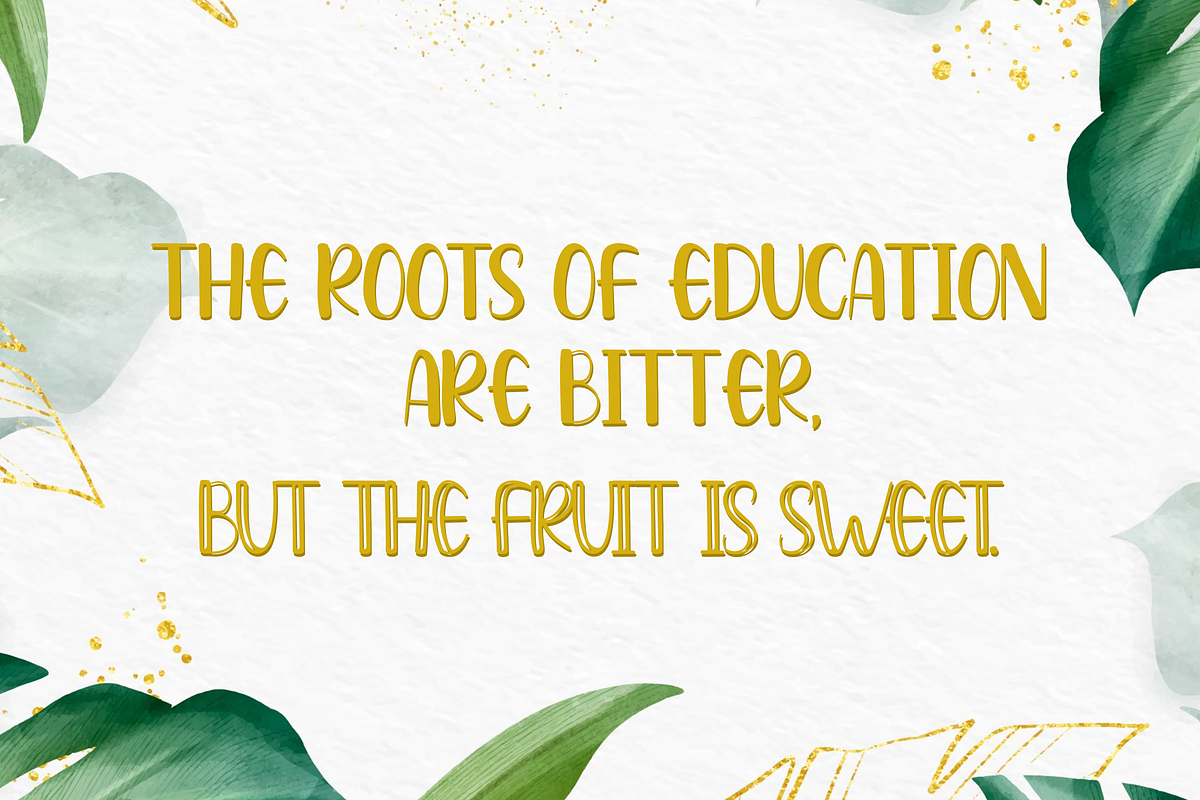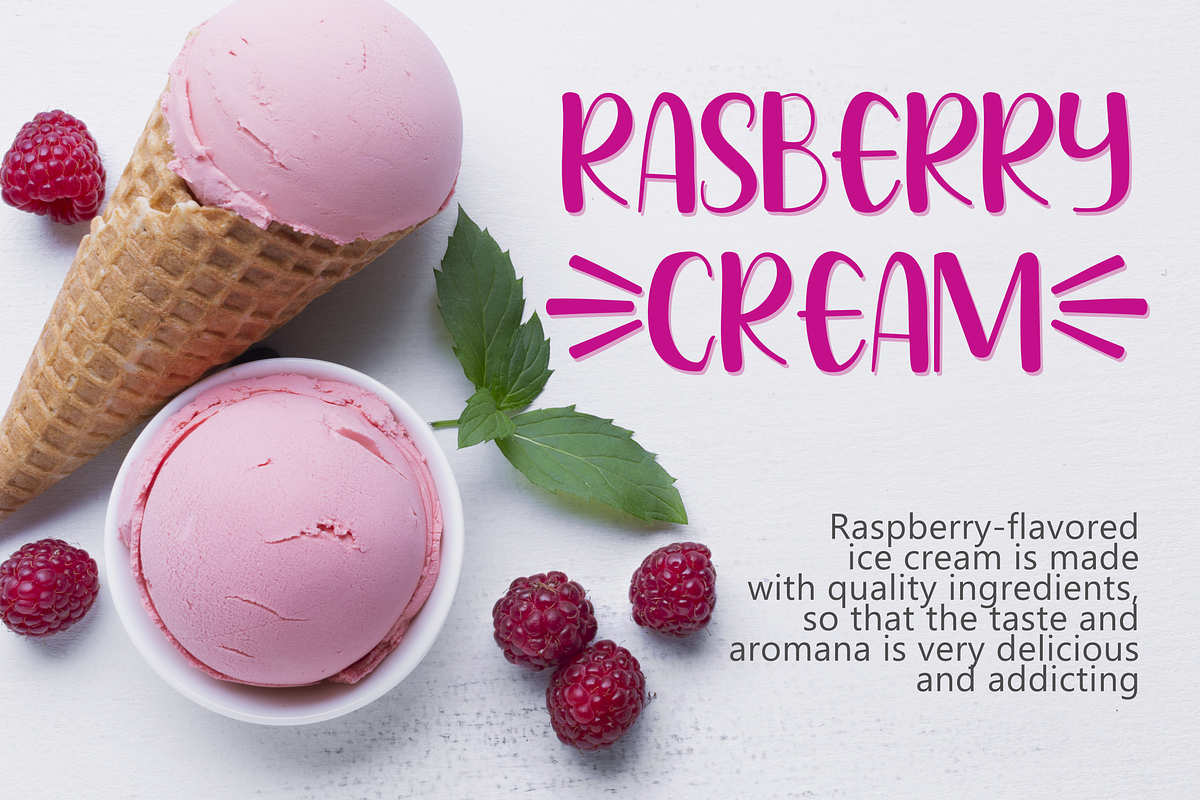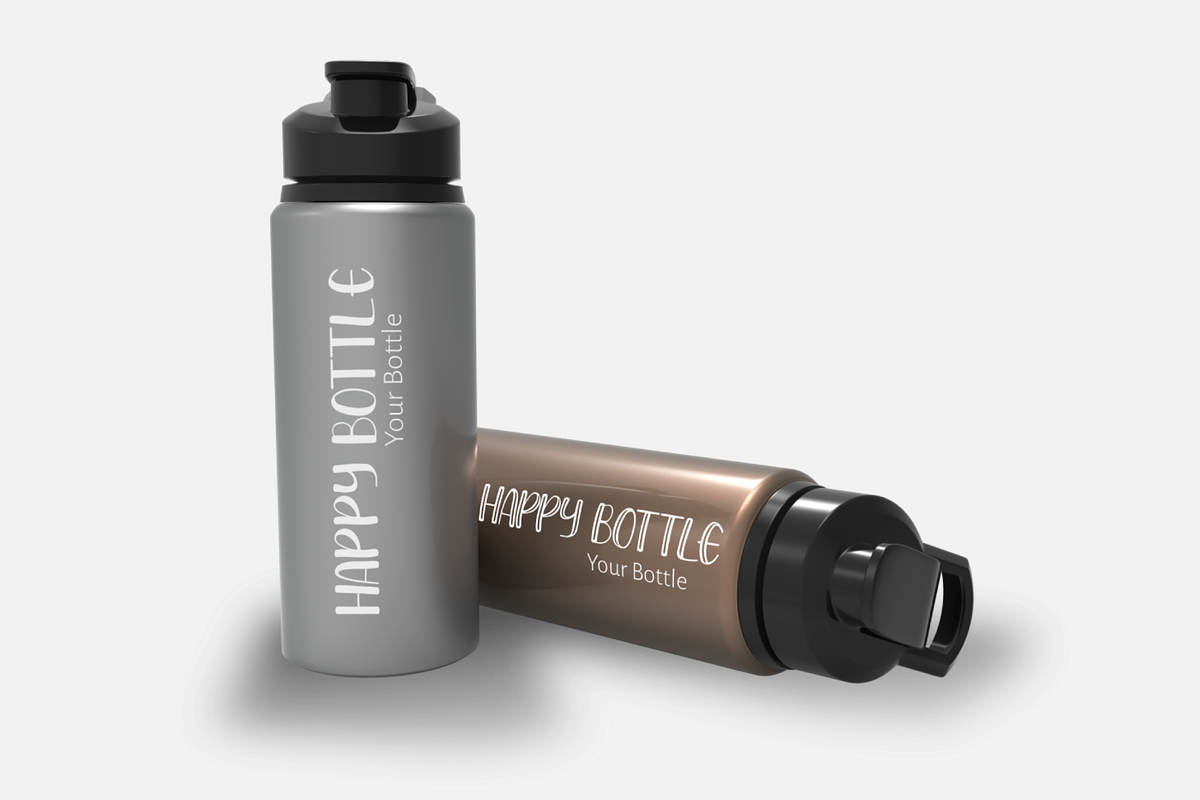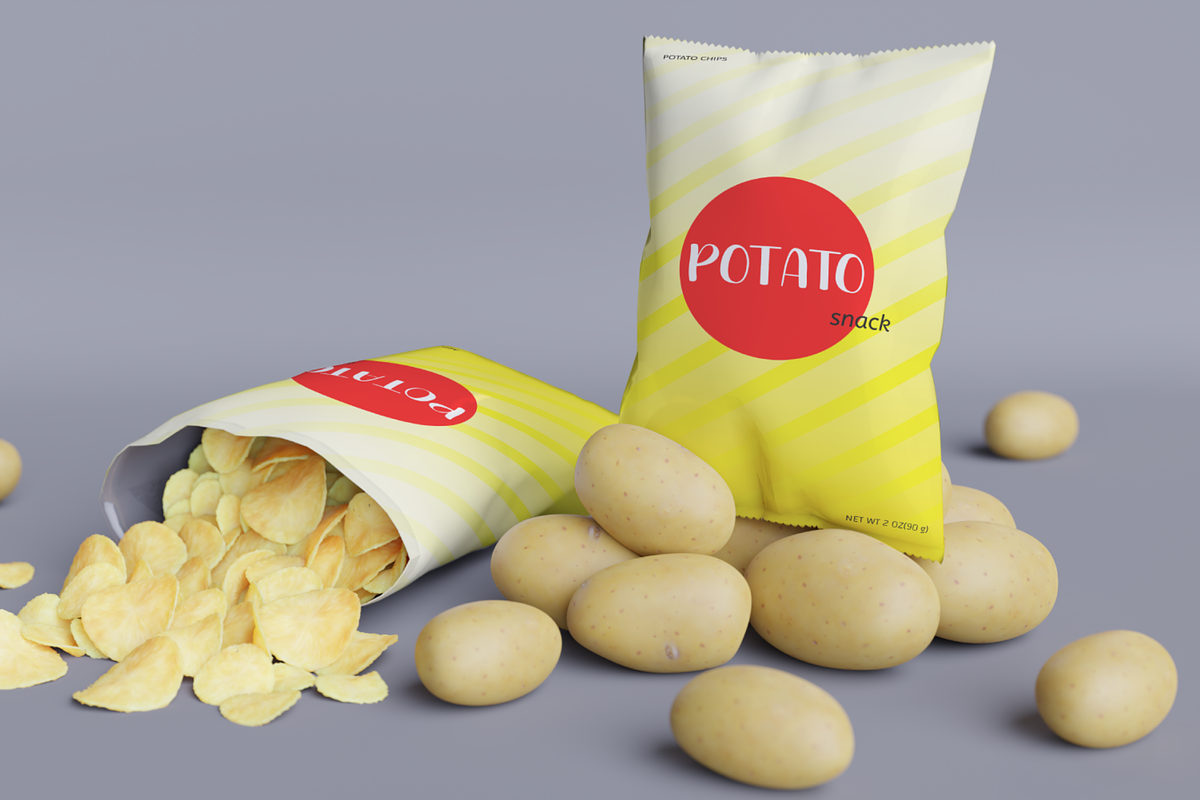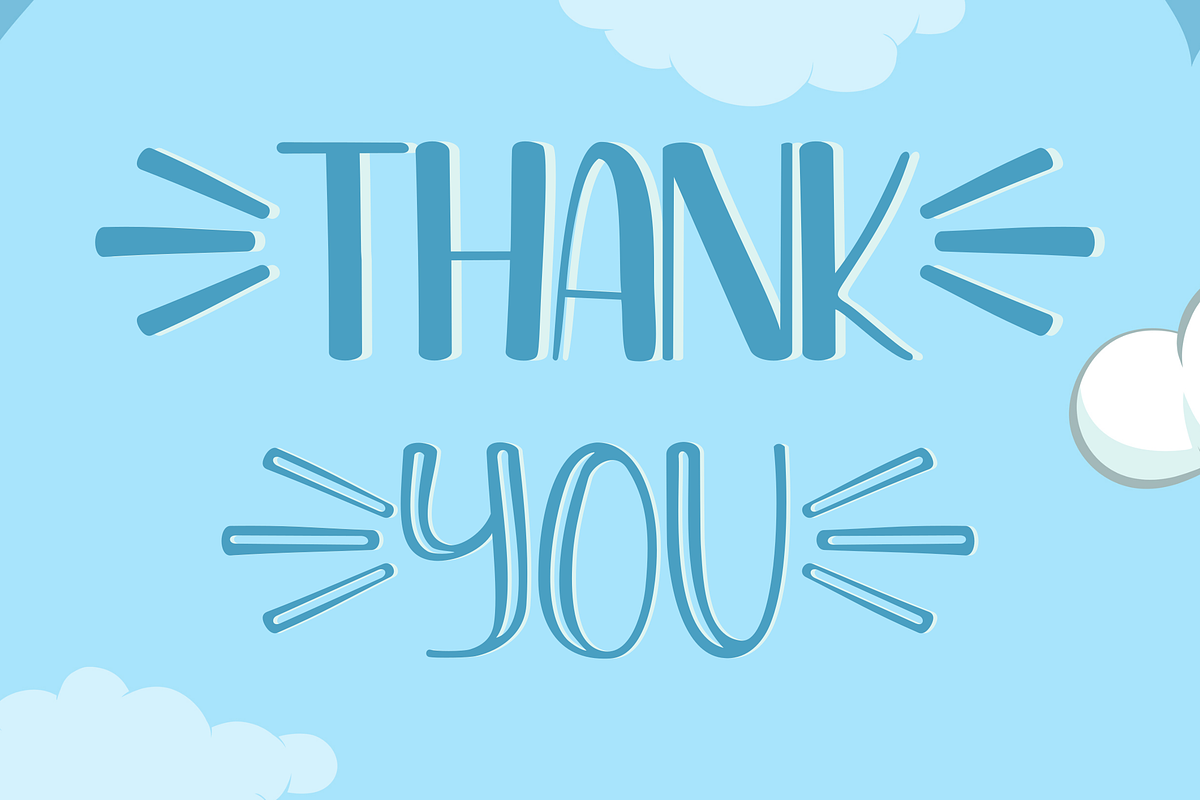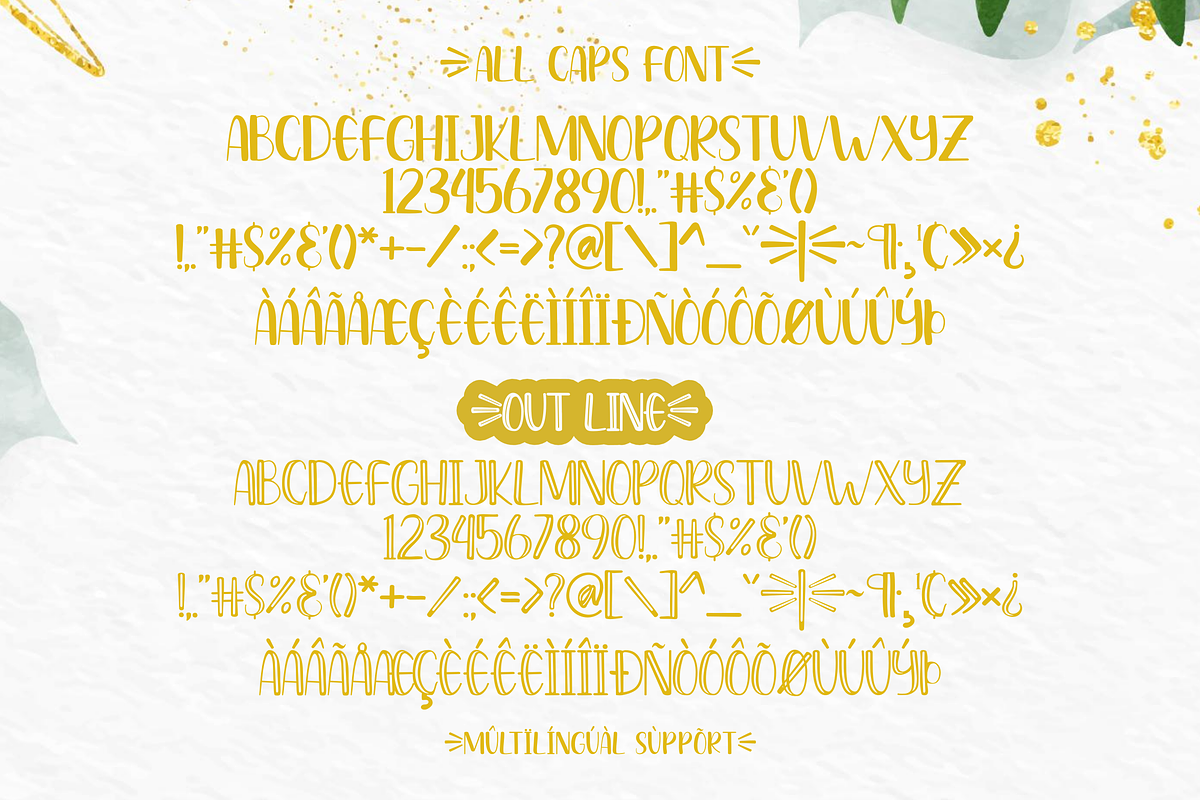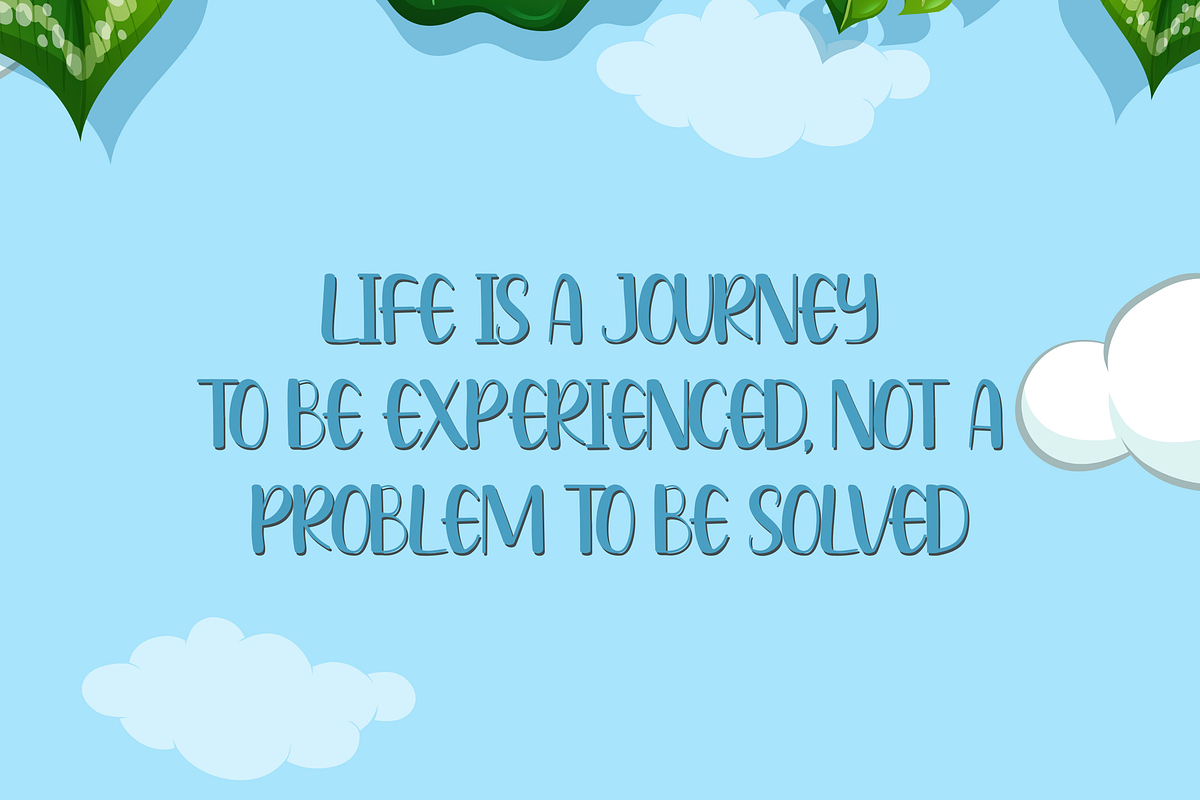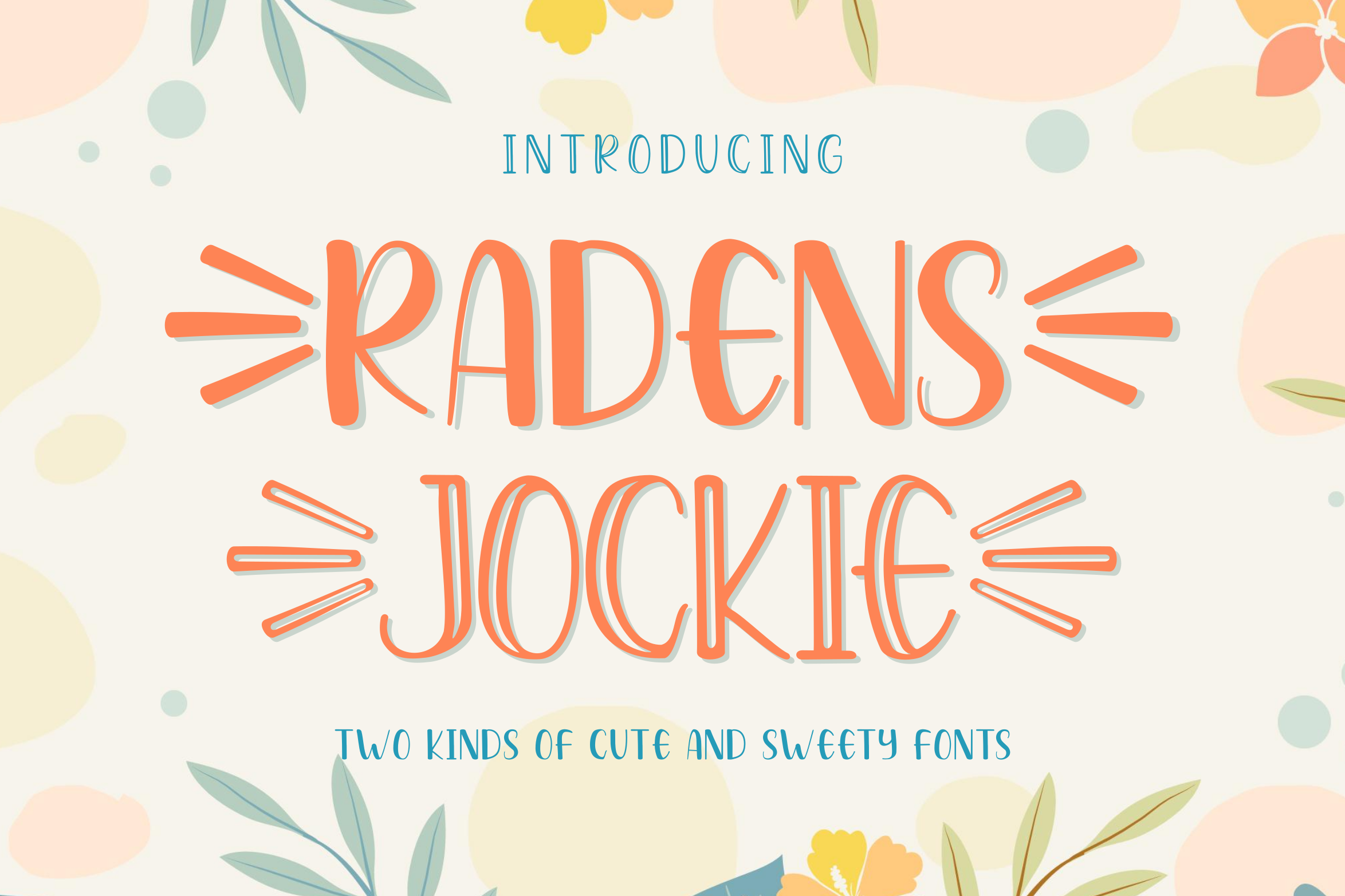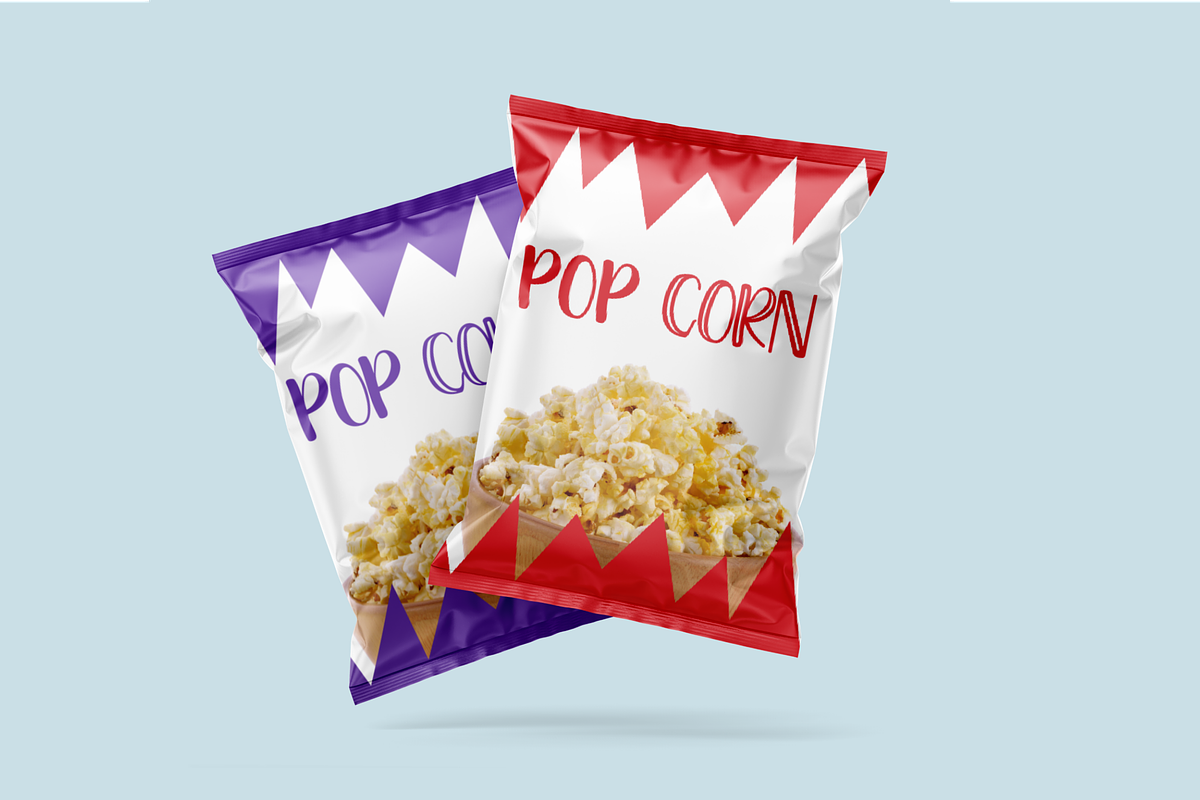
Radens Jockie | Delightful Font Pack
Radens Jockie is a stunning handwritten font. Has two styles, regular and hollow. This charming font will turn any creative idea into a standout. Get creative with childlike fun, and use it to brighten up any craft project! which is cute and sweet.
Uppercase Supports international languages that include numerals, punctuation, multiple headings, alternative styles, and can be accessed in the Adobe Illustrator Glyphs panel, or under Stylistic Alternates in Adobe Photoshop OpenType, Adobe InDesign, Corel Draw, and even works in Microsoft Word. TTF, OTF files.